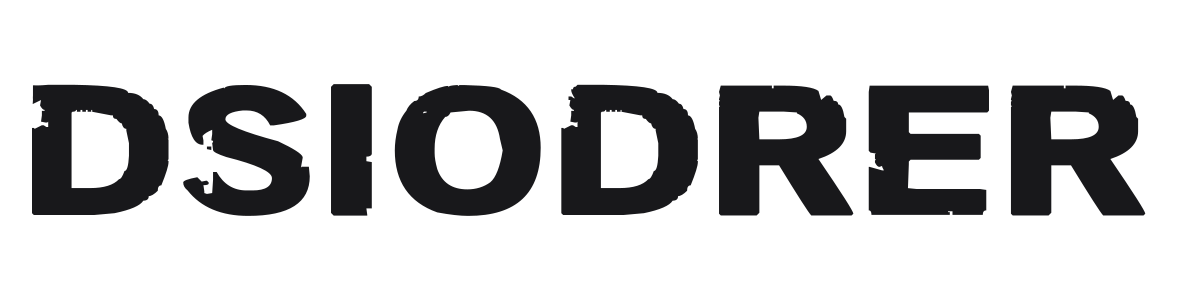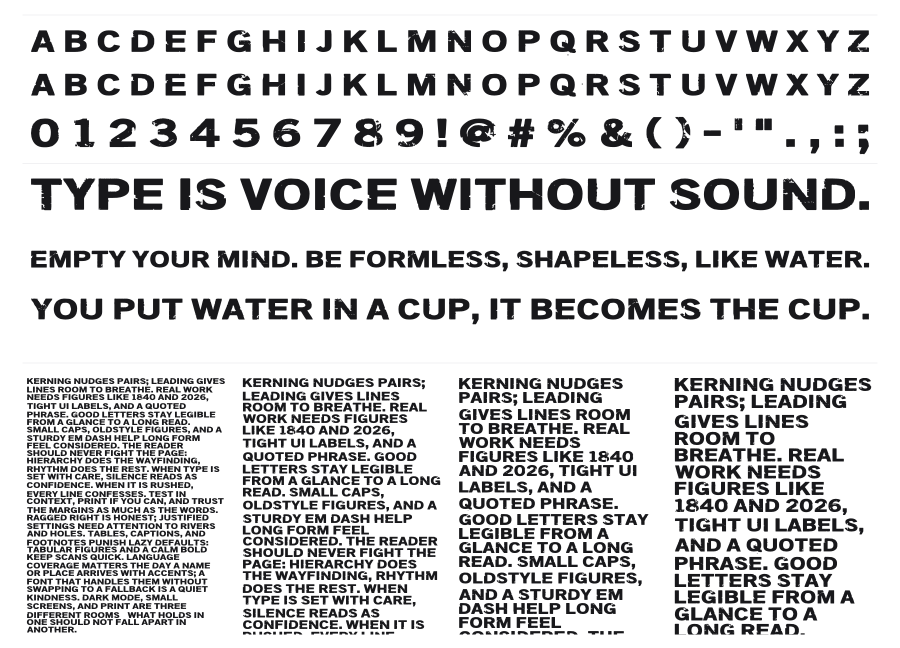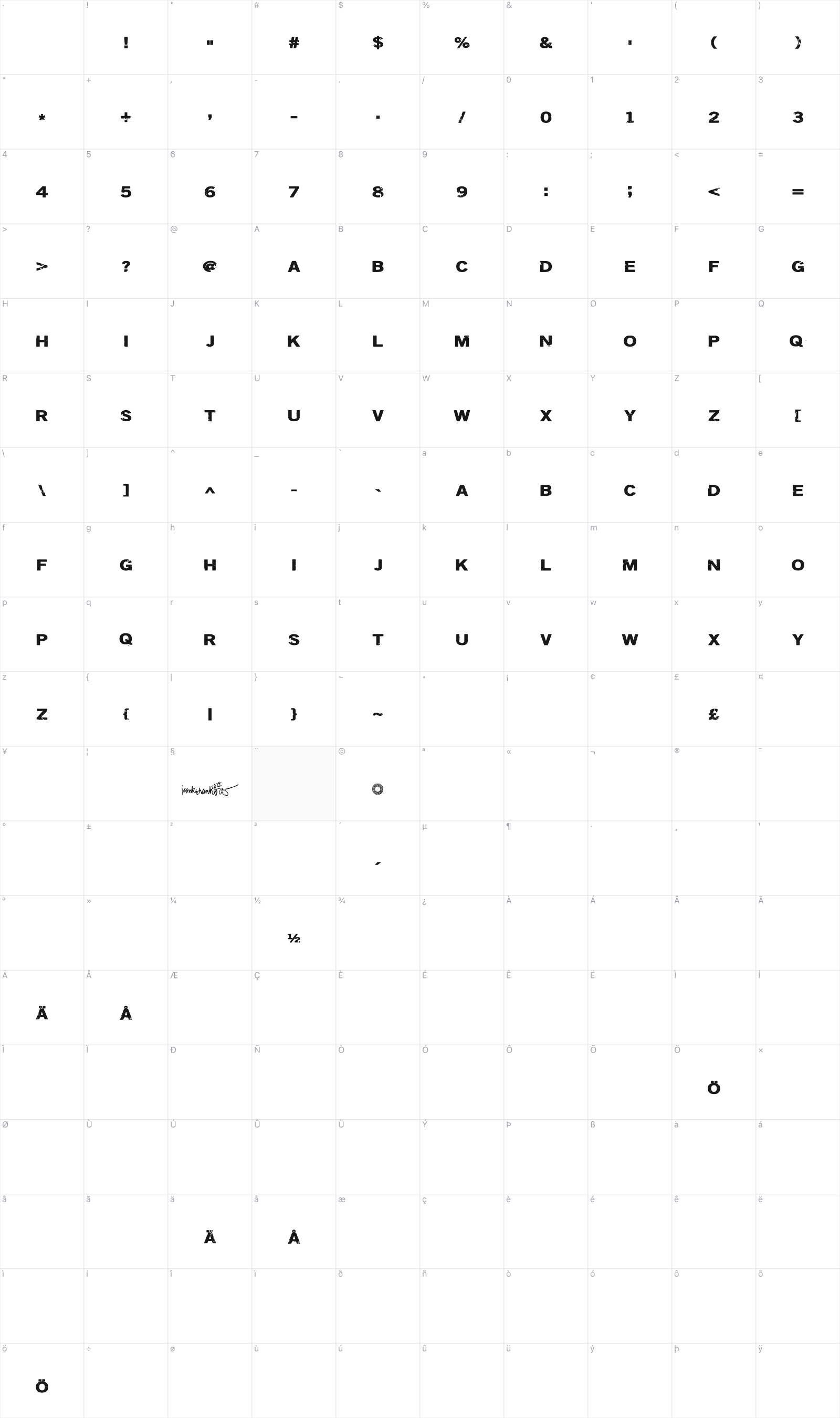
Dsiodrer
Dsiodrer is a heavy sans-serif display font built around a distressed, eroded texture that mimics degraded ink or worn-down print. The base structure is a wide, blocky grotesque, but the surface breakdown gives it a raw, street-level intensity. Works best large, where the texture reads clearly.